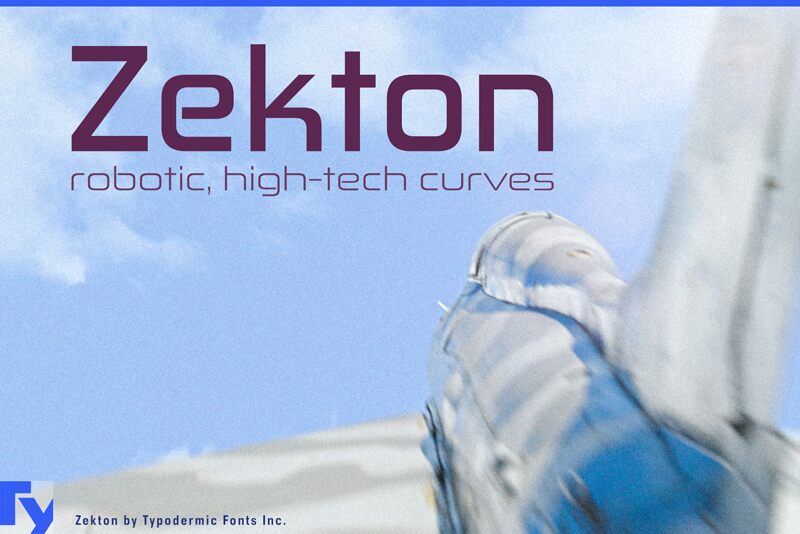
Zekton Regular
Prepare for typographic liftoff with Zekton, the font thats boldly going where no letterform has gone before. This isnt just a typefaceits a portal to a chrome-plated future where information flows like liquid crystal and ideas spark like neon against the night sky.
Zektons square-edged characters arent merely letters; theyre microchips in a vast circuit board of communication. Each glyph pulses with the raw energy of a thousand CRT monitors, its uniform line widths humming with the precision of a laser-cut future. This is the typeface youd find etched onto the control panel of an interstellar cruiser, or scrolling across the visor of a cybernetic street samurai. But Zekton isnt just about looksits about versatility in the face of an ever-shifting digital landscape. With seven weights, two widths, and a full complement of italics, Zekton offers 42 variations on technological perfection. Its like having a shape-shifting android at your typographic command, ready to adapt to any design challenge the future throws your way.
From the neon-drenched back alleys of Neo-Tokyo to the sleek corporate monoliths of Silicon Valley, Zekton speaks the lingua franca of the digital age. Its extensive language support, including Cyrillic, ensures your message resonates across the global datascape. Whether youre coding the next reality-altering app or designing the interface for humanitys first Mars colony, Zekton has the syntactic subroutines to get the job done.
Choose Zekton, and watch as your designs transform into beacons of innovation, calling out across the technosphere. Its more than a fontits a declaration that the future isnt just coming, its already here, rendered in pixels and light.